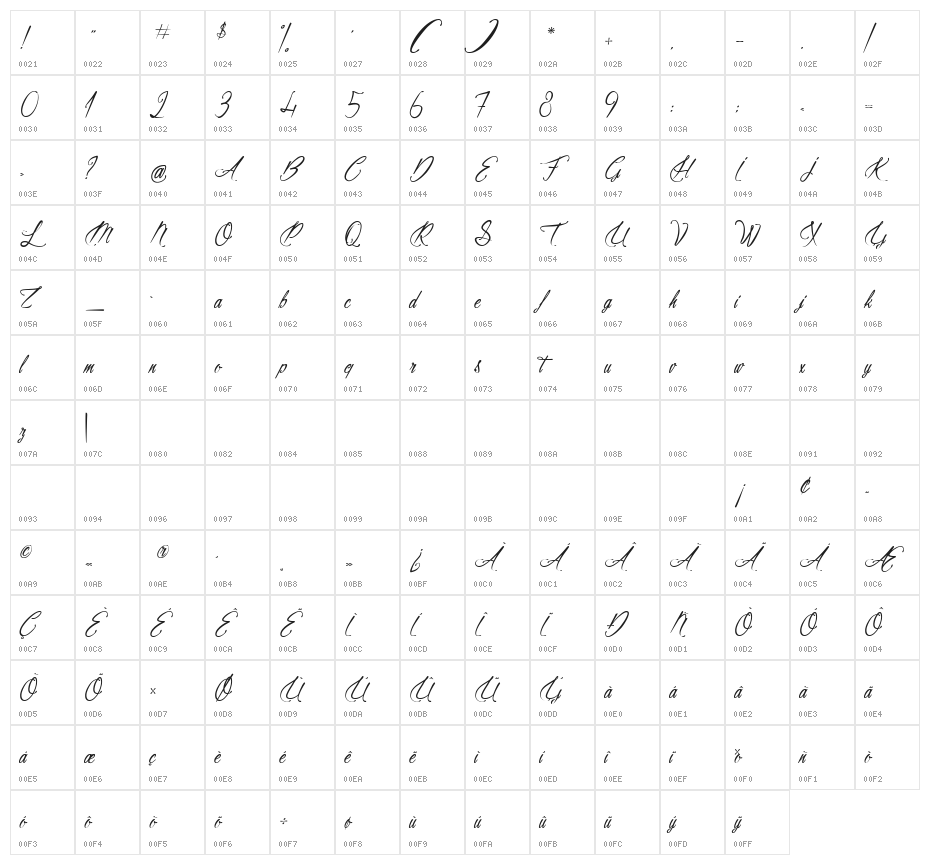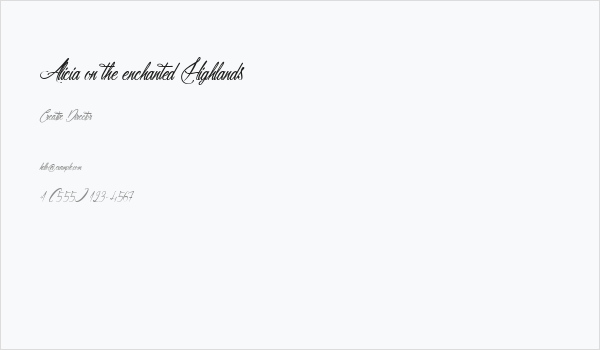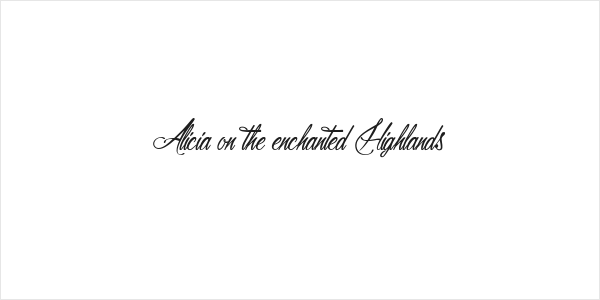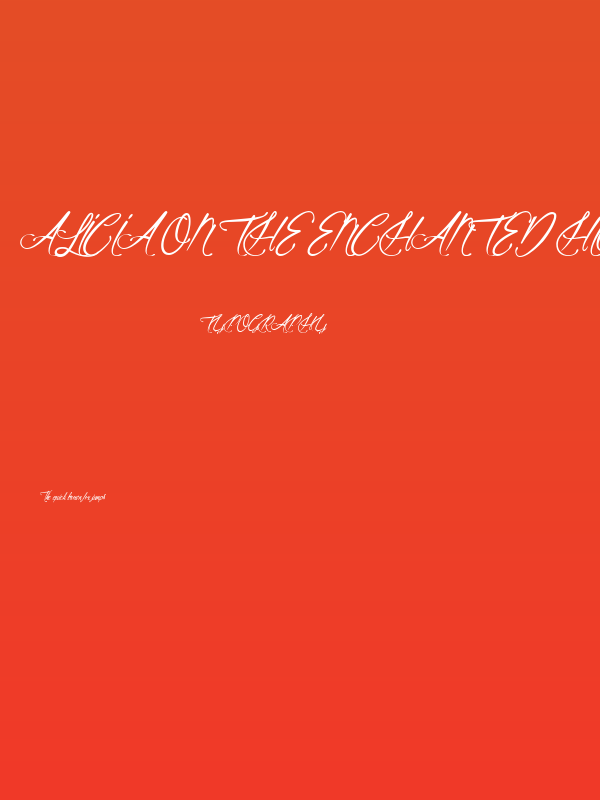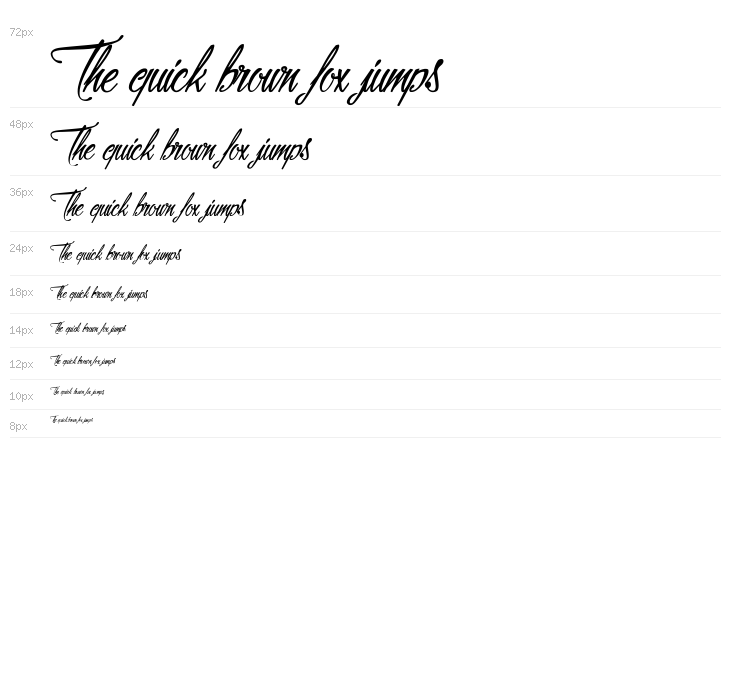
Alicia on the enchanted Highlands Font
Alicia on the enchanted Highlands Description
This font exudes elegance and sophistication with its flowing, cursive script style. The uppercase letters are characterized by their sweeping, dramatic flourishes, while the lowercase letters maintain a consistent, graceful rhythm. The numerals are distinct and maintain the same fluidity, ensuring readability while preserving the font's artistic flair. Special characters are designed with similar attention to detail, enhancing the overall aesthetic. This font is perfect for projects that require a touch of class and refinement, such as wedding invitations, formal event programs, or luxury branding.
| Proposed Projects | Ideal for wedding invitations, luxury branding, and formal event programs. |